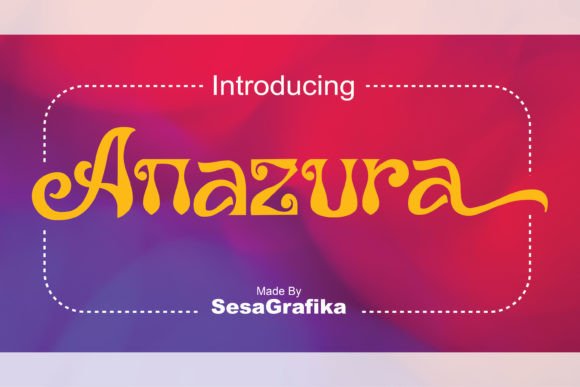
The Retro Charm of Anazura Font: A Designer’s Delight
I’ll never forget the time I was working on a branding project for a vintage-inspired boutique, and I just couldn’t find the perfect font to capture the essence of their retro aesthetic. The client was specific about wanting something clean, quirky, and reminiscent of a bygone era. That’s when I stumbled upon Anazura Font, a hidden gem that has since become one of my go-to fonts for any project that requires a dash of nostalgia and whimsy.
An Honest Review of Anazura Font
So, what makes Anazura Font so special? Let’s dive into the good stuff and, of course, a few minor quirks.
• ✨ Unique retro style that’s perfect for vintage-inspired designs
• ✅ Clean and elegant lines that work well for both headings and body text
• 💫 PUA encoded, making it easy to access all glyphs and swashes
• 🎨 Highly versatile and suitable for various design projects, from logos and branding to social media and apparel
• 🤔 Limited availability of language support (but suitable for English and some European languages)
• ⚠️ Some users may find the font a bit too ornate for very small text sizes
A Practical Guide to Using Anazura Font
Now that we’ve covered the basics, let’s explore how to make the most of Anazura Font in your designs.
4. Experiment with OpenType features, such as swashes and stylistic alternates, to add personality to your text
The Story Behind Anazura Font
While the origins of Anazura Font may be shrouded in mystery, it’s clear that the designer was inspired by the elegance and charm of vintage typography. With its unique blend of classic and quirky elements, Anazura Font is a testament to the power of creative design.
Q: What type of projects is Anazura Font best suited for?
A: Anazura Font is highly versatile and can be used for various design projects, including logos, branding, social media graphics, apparel, and more.
Q: Is Anazura Font easy to read?
A: Yes, Anazura Font is clean and elegant, making it suitable for both headings and body text. However, it may be less suitable for very small text sizes.
Q: Is Anazura Font available in multiple languages?
A: Anazura Font has limited language support, but it is suitable for English and some European languages.